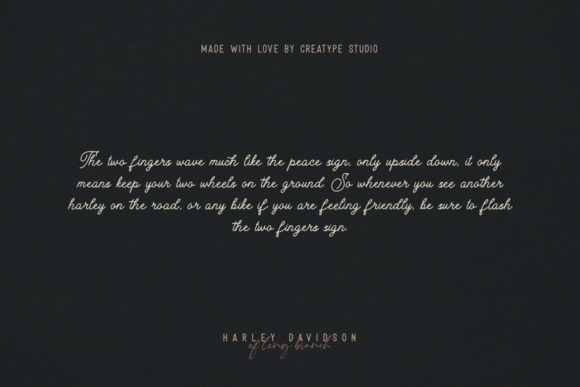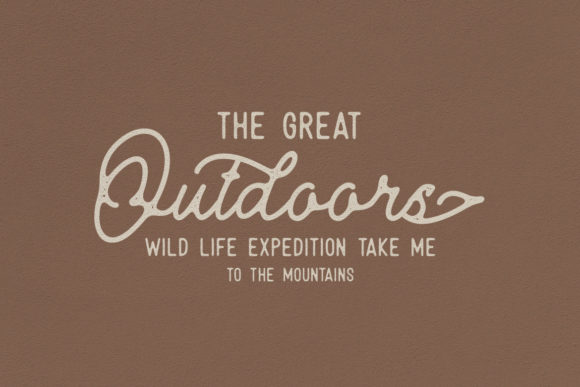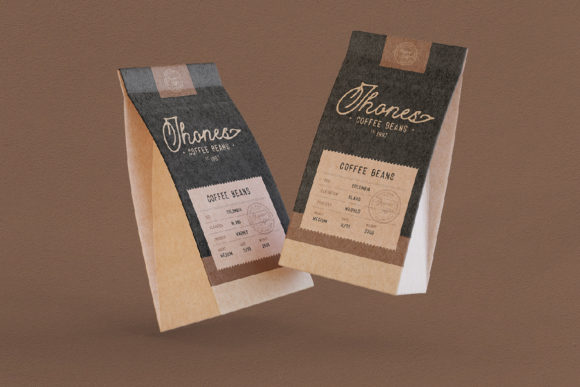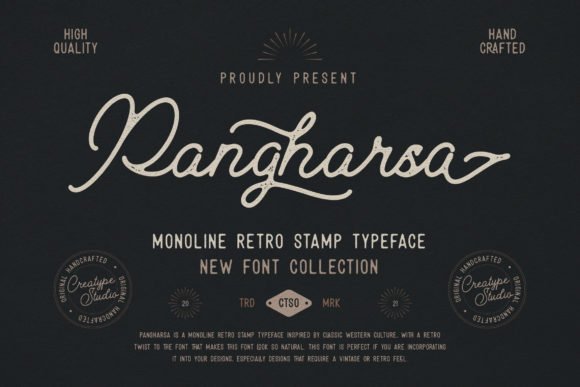
Introduction to Pangharsa Font
Pangharsa is a beautiful, well balanced and vintage styled script font.
It is defined by smooth curves and is perfect for fashion branding or editorial designs Pangharsa is PUA encoded which means you can access all of the amazing glyphs and ligatures with ease.